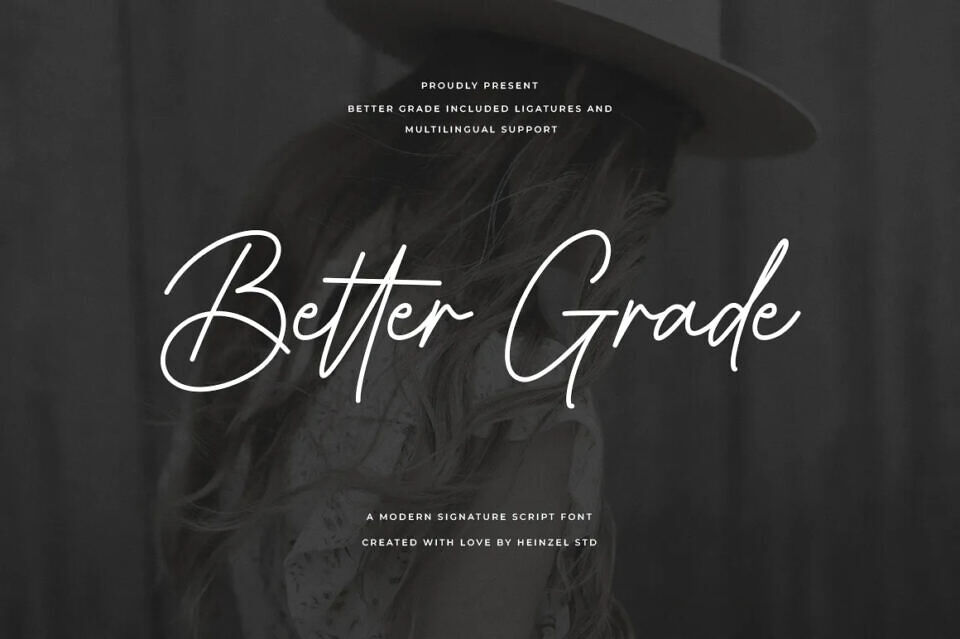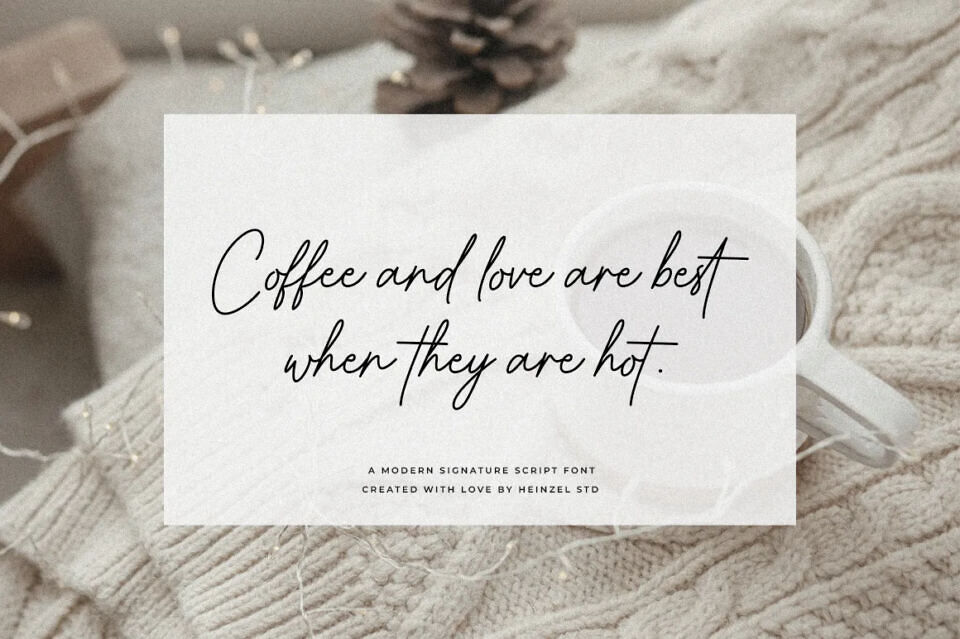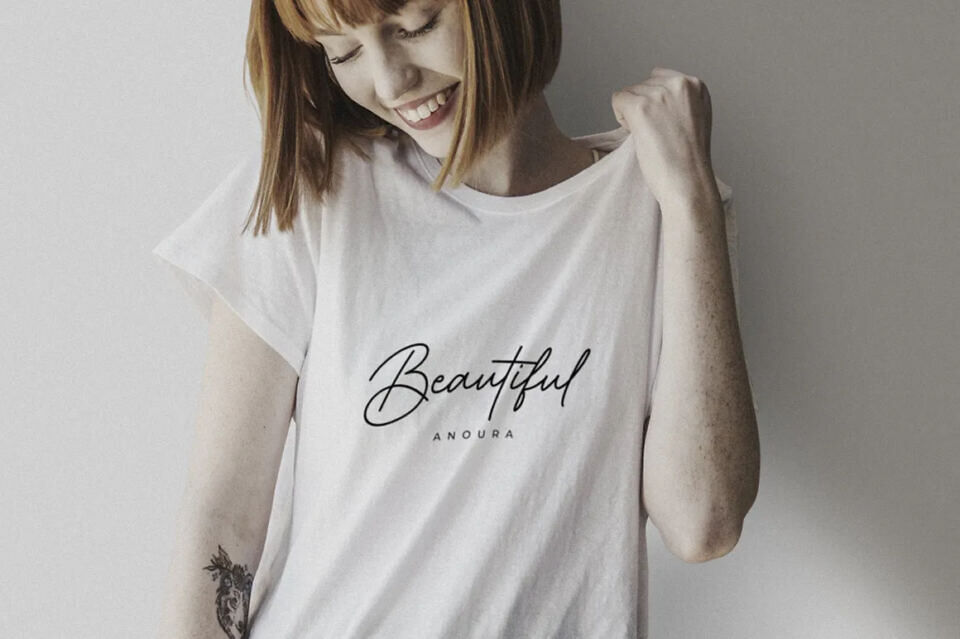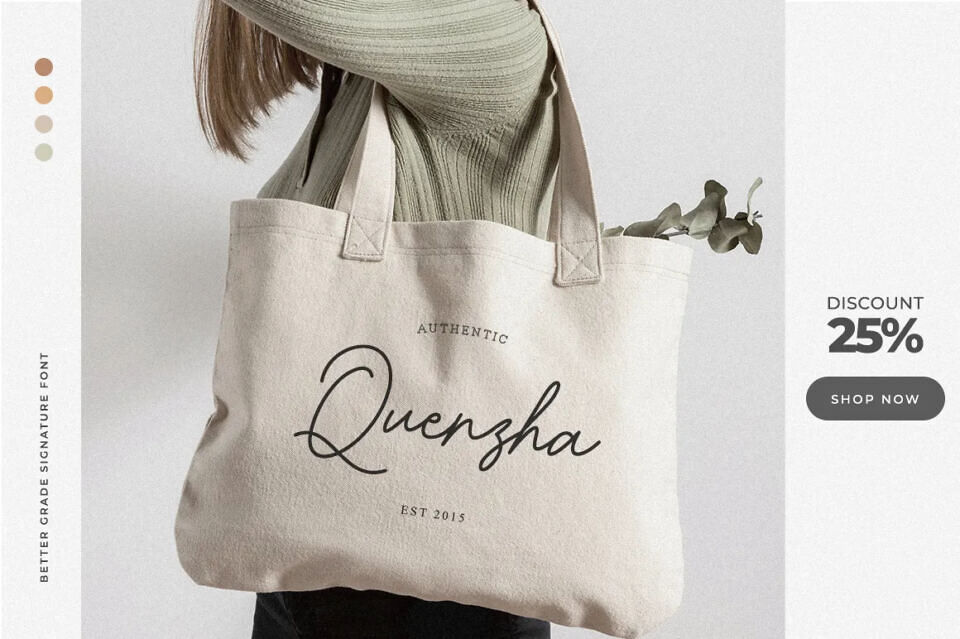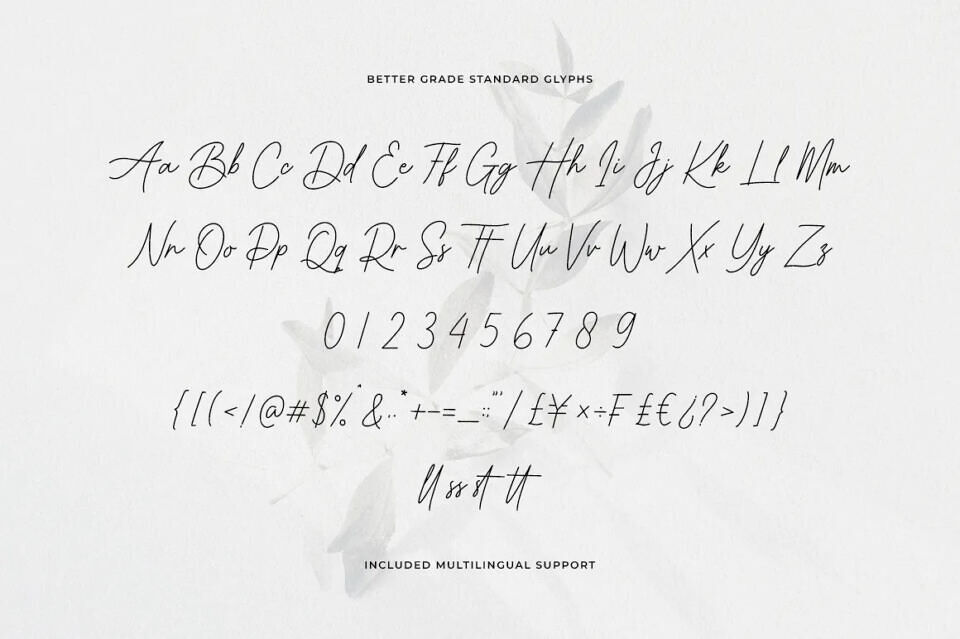
Better Grade Font
Introducing Better Grade Font, a sophisticated signature typeface that adds an air of elegance to your design projects. With its refined letterforms and impeccable strokes, Better Grade Font is the perfect choice for creating a personalized and luxurious touch.
Crafted with precision and attention to detail, Better Grade Font captures the essence of a handcrafted signature. Its fluid curves and distinctive flourishes create a sense of exclusivity and sophistication, making it ideal for branding, logos, wedding invitations, thank you cards, quotes, greeting cards, business cards, social media posts, magazines, marketing materials, and more.